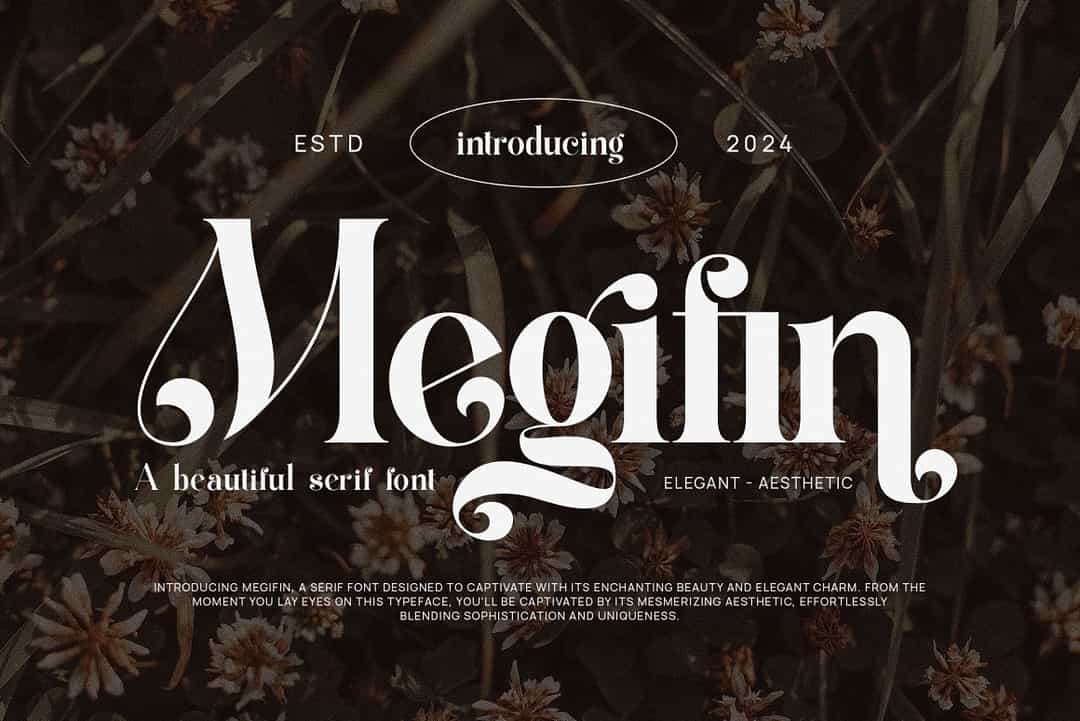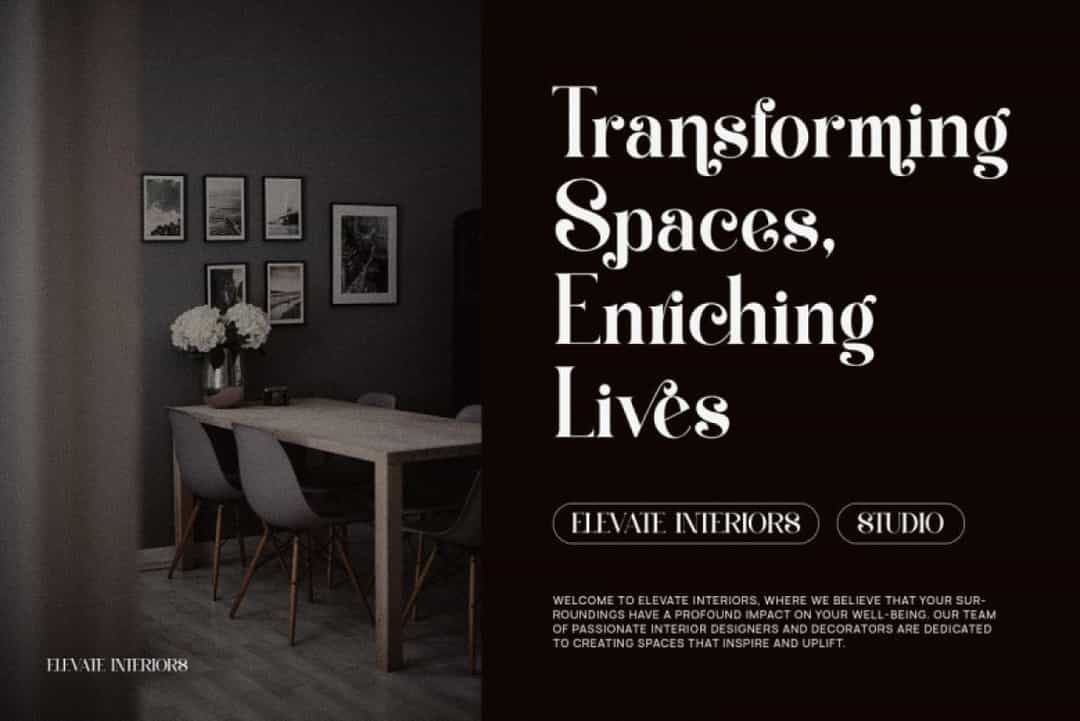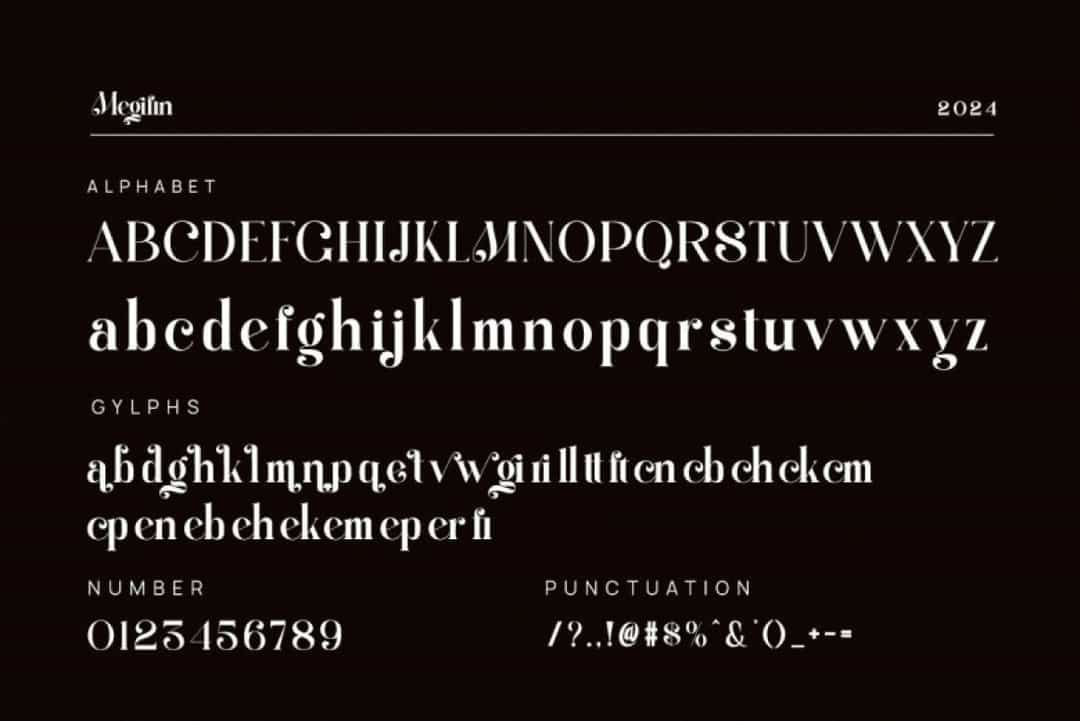
Megifin is an elegant serif typeface that exudes classic sophistication. With elegant letterforms that exude classic beauty, Megifin adds a sense of classiness to your designs with its sophisticated style and elegant sophistication.